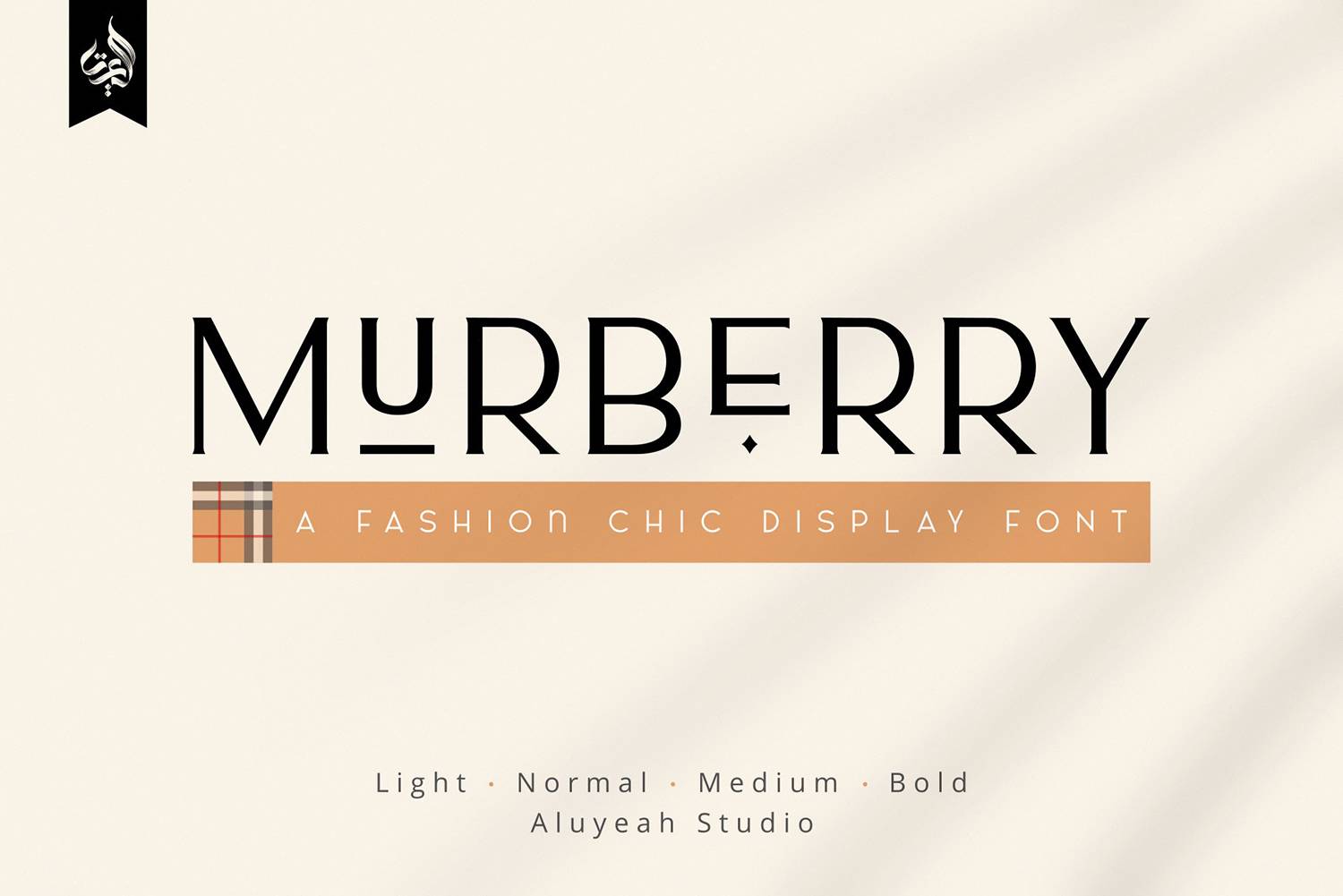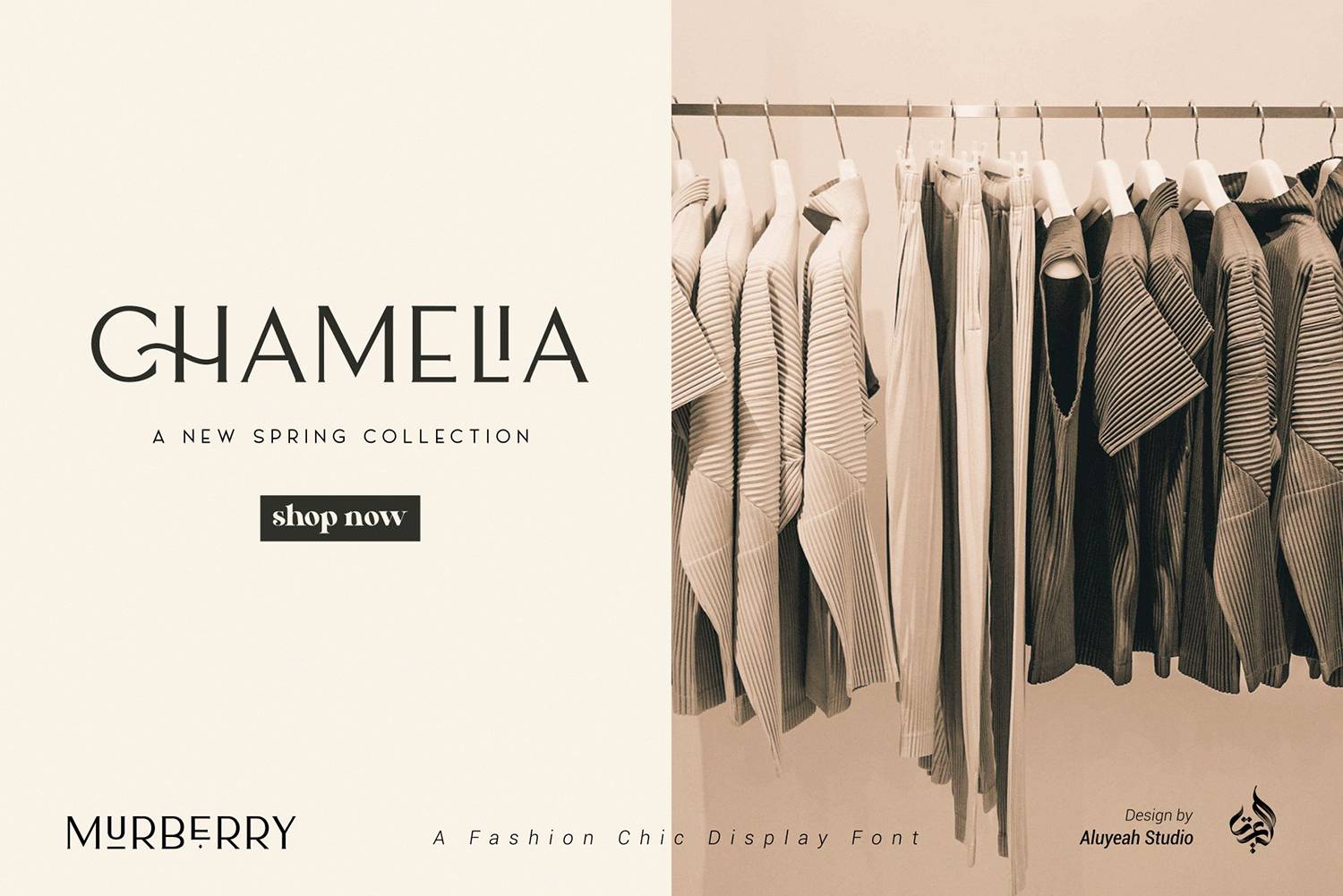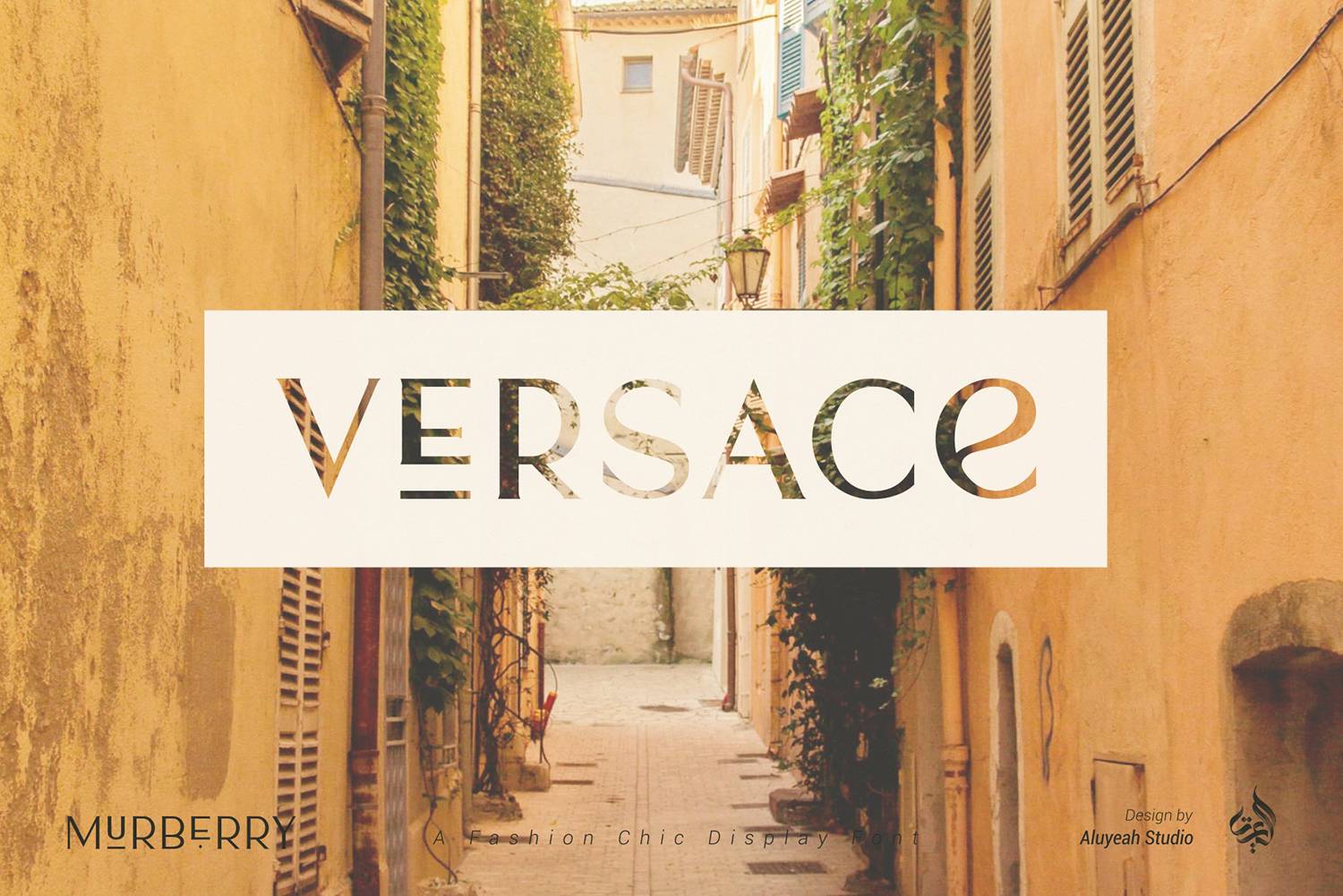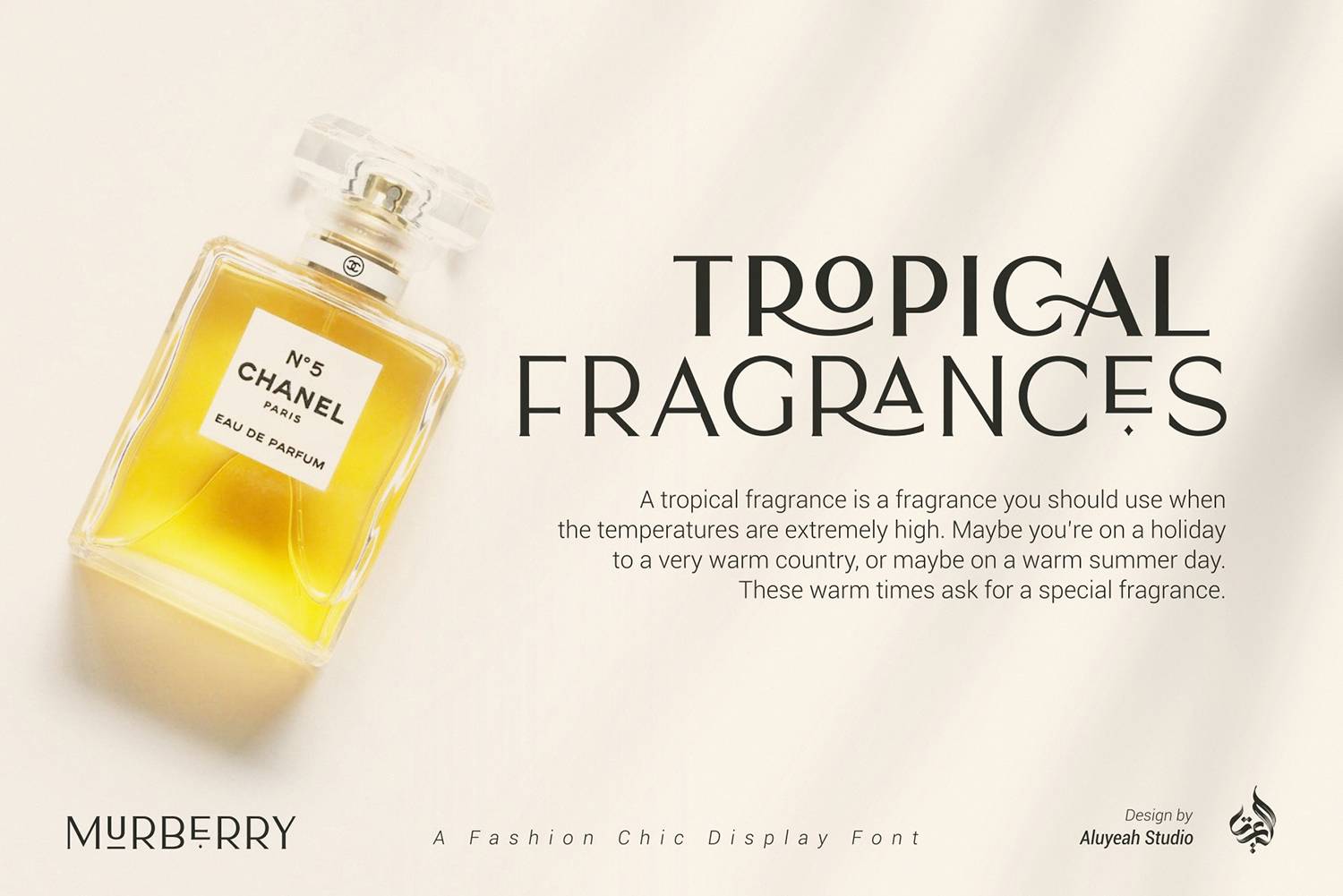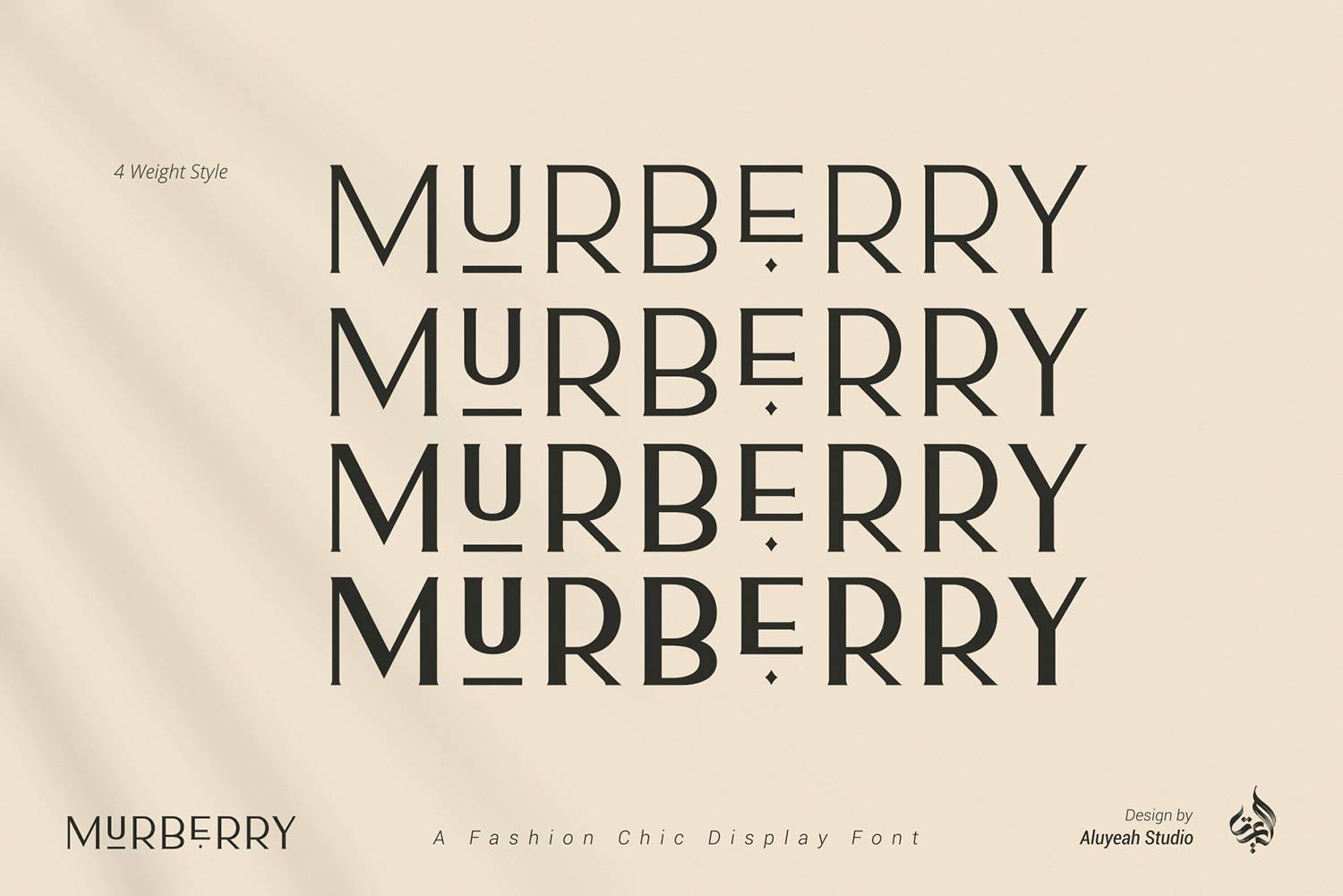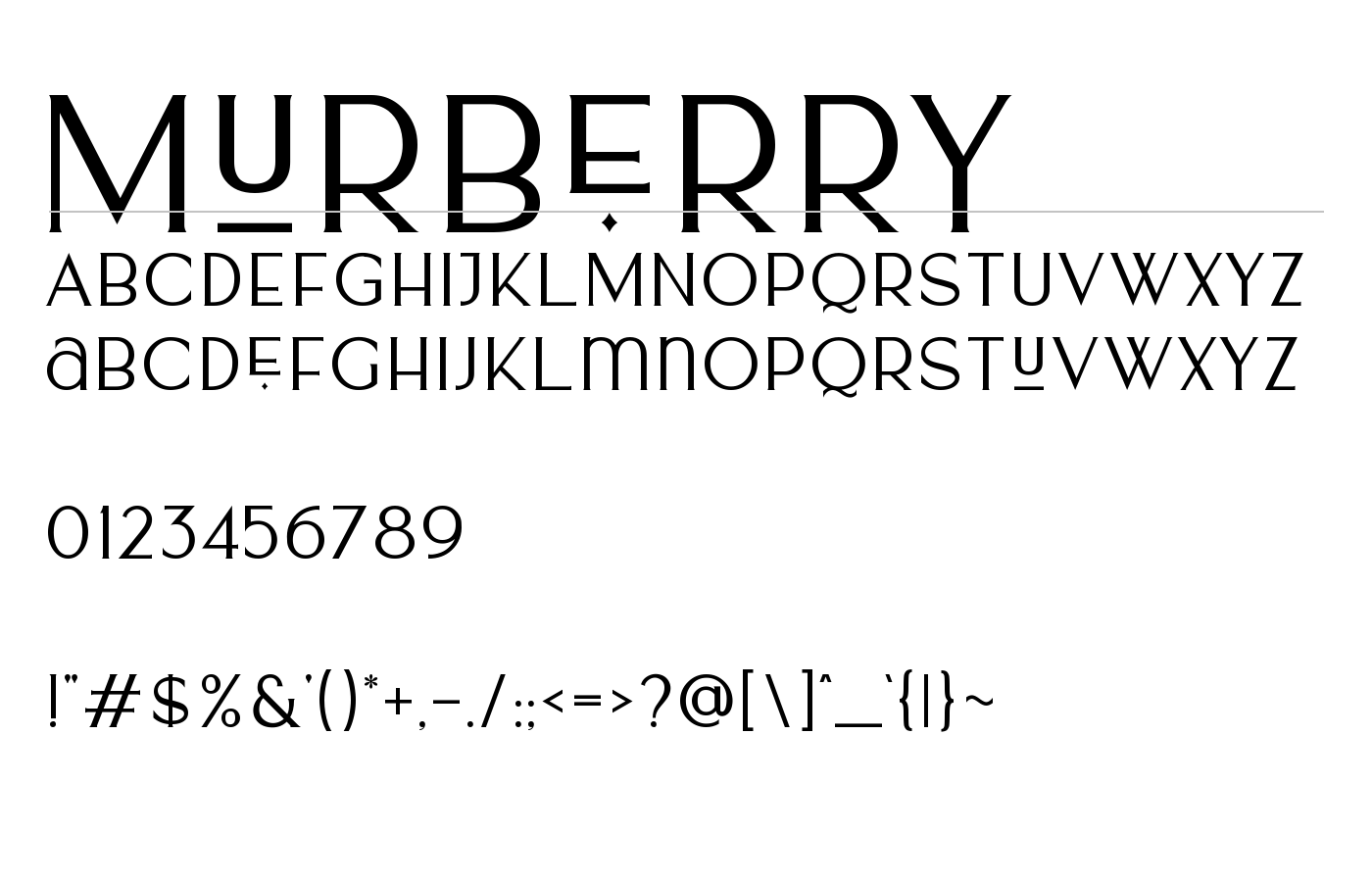
Murberry is an elegant serif font with a modern touch, characterized by its sharp, clean lines and distinct geometric details such as diamond-shaped terminals and subtle curved strokes. It features a regular weight and normal width, balanced contrast, and a refined, sophisticated look that suits luxury branding, editorial headlines, and stylish logos. This font's unique letterforms impart a contemporary yet classic feel, making it ideal for designs that want to convey both professionalism and creativity.
Murberry Font
About Murberry Font